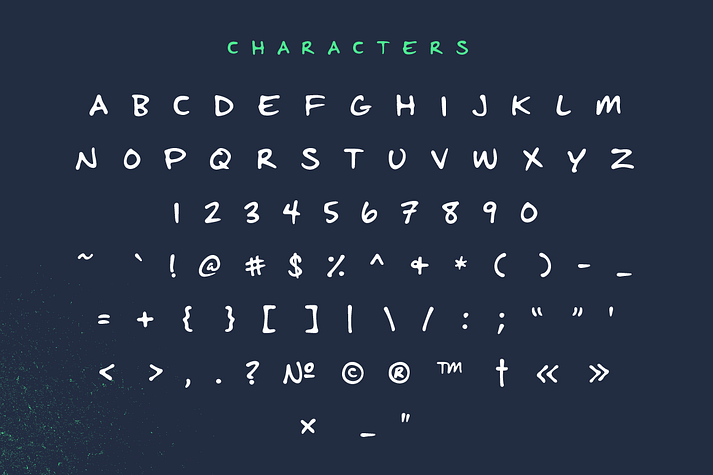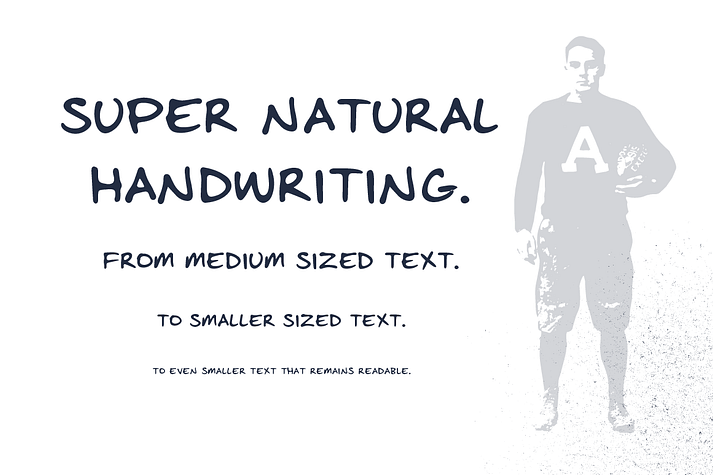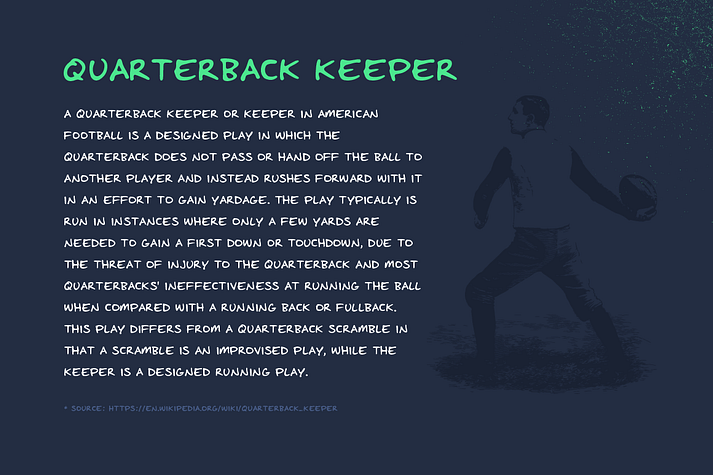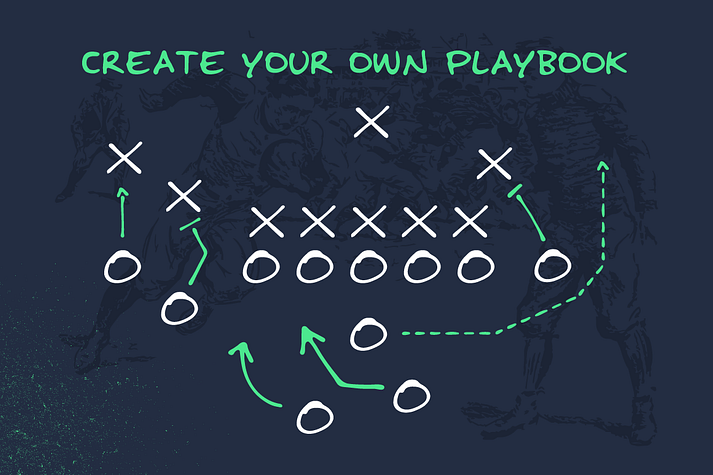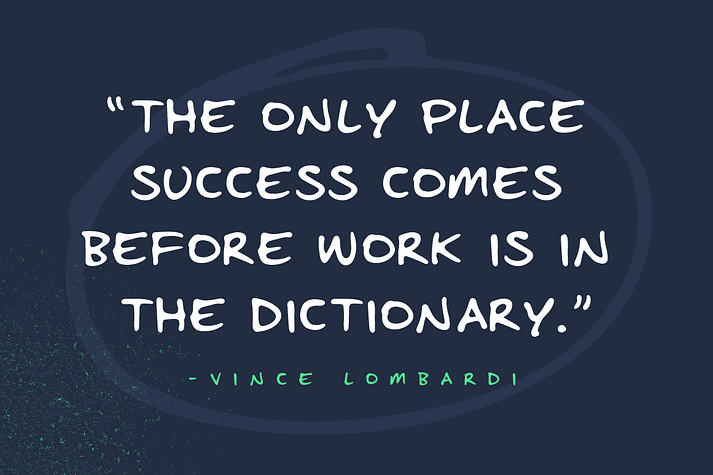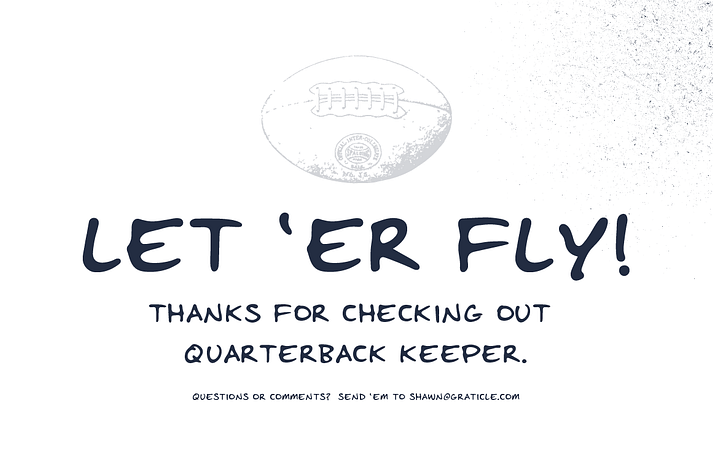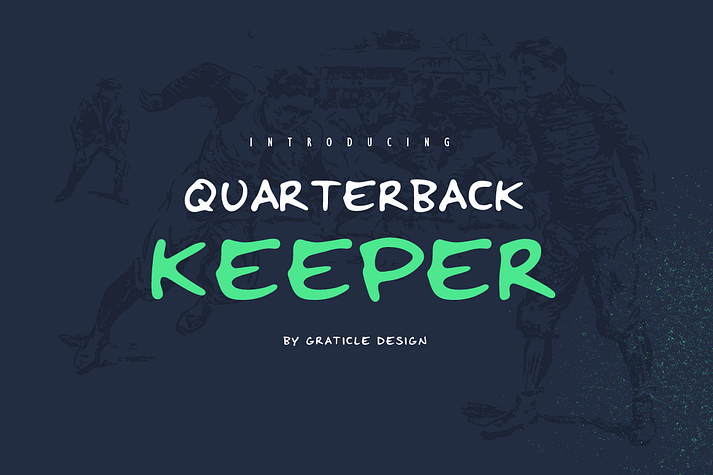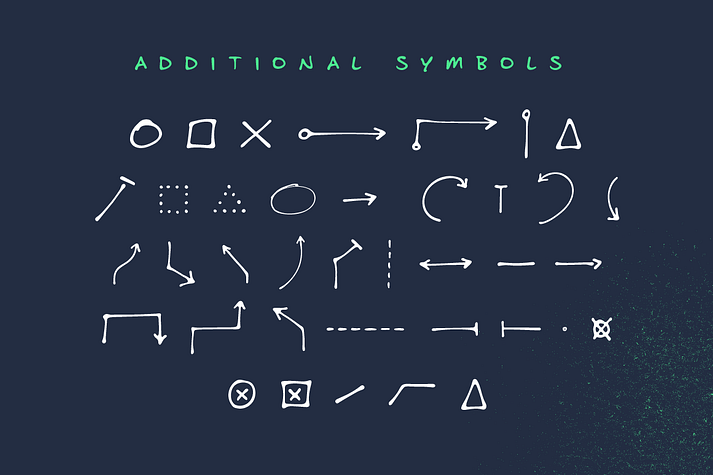
Quarterback Keeper
Quarterback Keeper is a font family published by Graticle, Inc.
Quarterback Keeper is a super natural handwriting font.
Along with characters and numbers, it includes symbols for putting together your football playbook, along with a variety of arrows. (see image 3)
Use Quarterback Keeper to create your playbook, posters, postcards, slideshows, t-shirt designs, quotes or anything you can dream up.
Foundry Graticle, Inc.